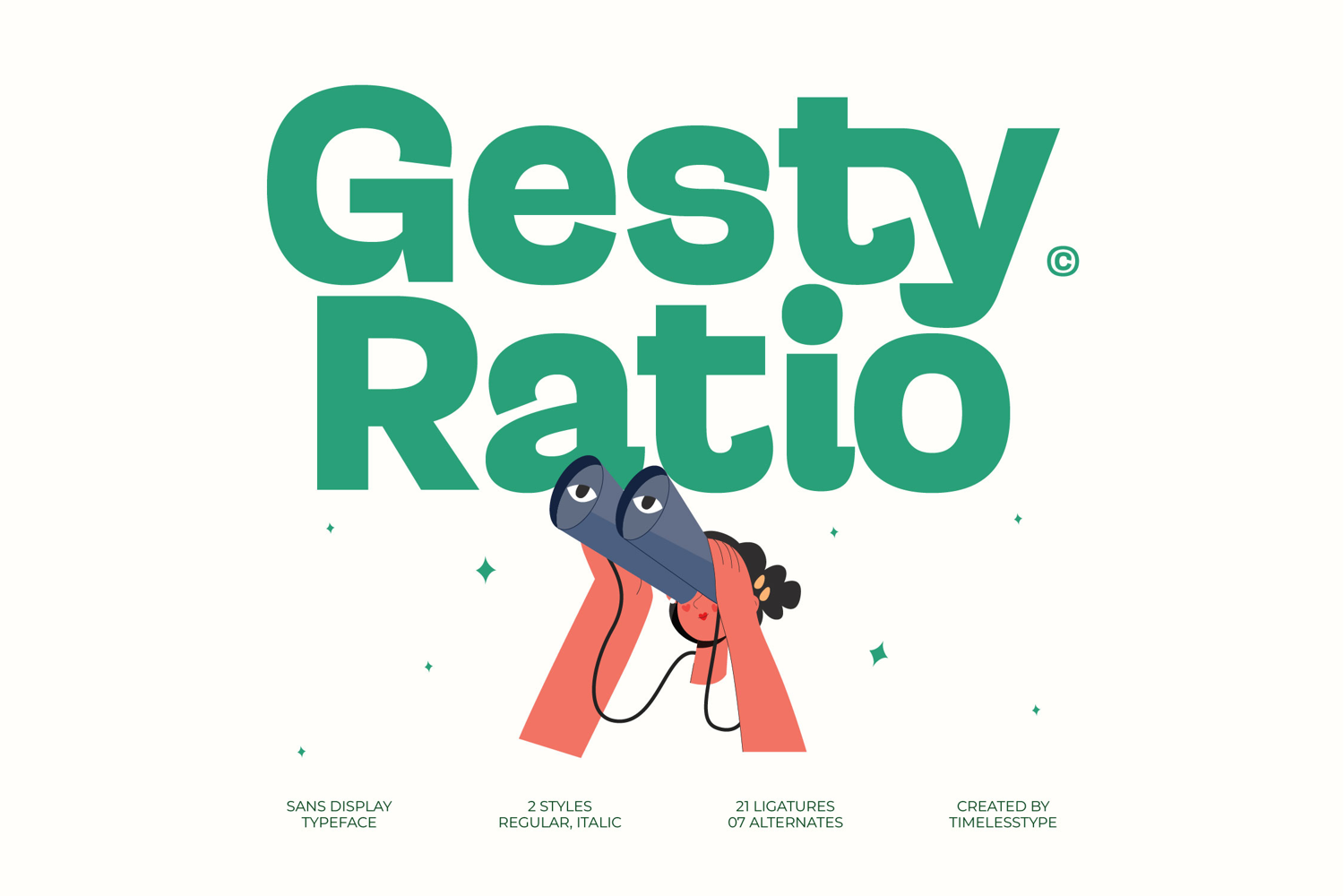
Gesty Ratio - Sans Display Typeface
Gesty Ratio Italic
Gesty Ratio
Elevate your visual communication with the defining presence of Gesty Ratio - Sans Display Typeface. This typeface is a masterclass in modern geometry, delivering a bold, inviting aesthetic perfect for commanding attention. Its robust structure is balanced by subtly rounded terminals, providing exceptional legibility even when deployed as a large-format display headline. The heavy weight ensures maximum impact, making it instantly memorable and establishing an authoritative yet friendly brand voice in any creative context.